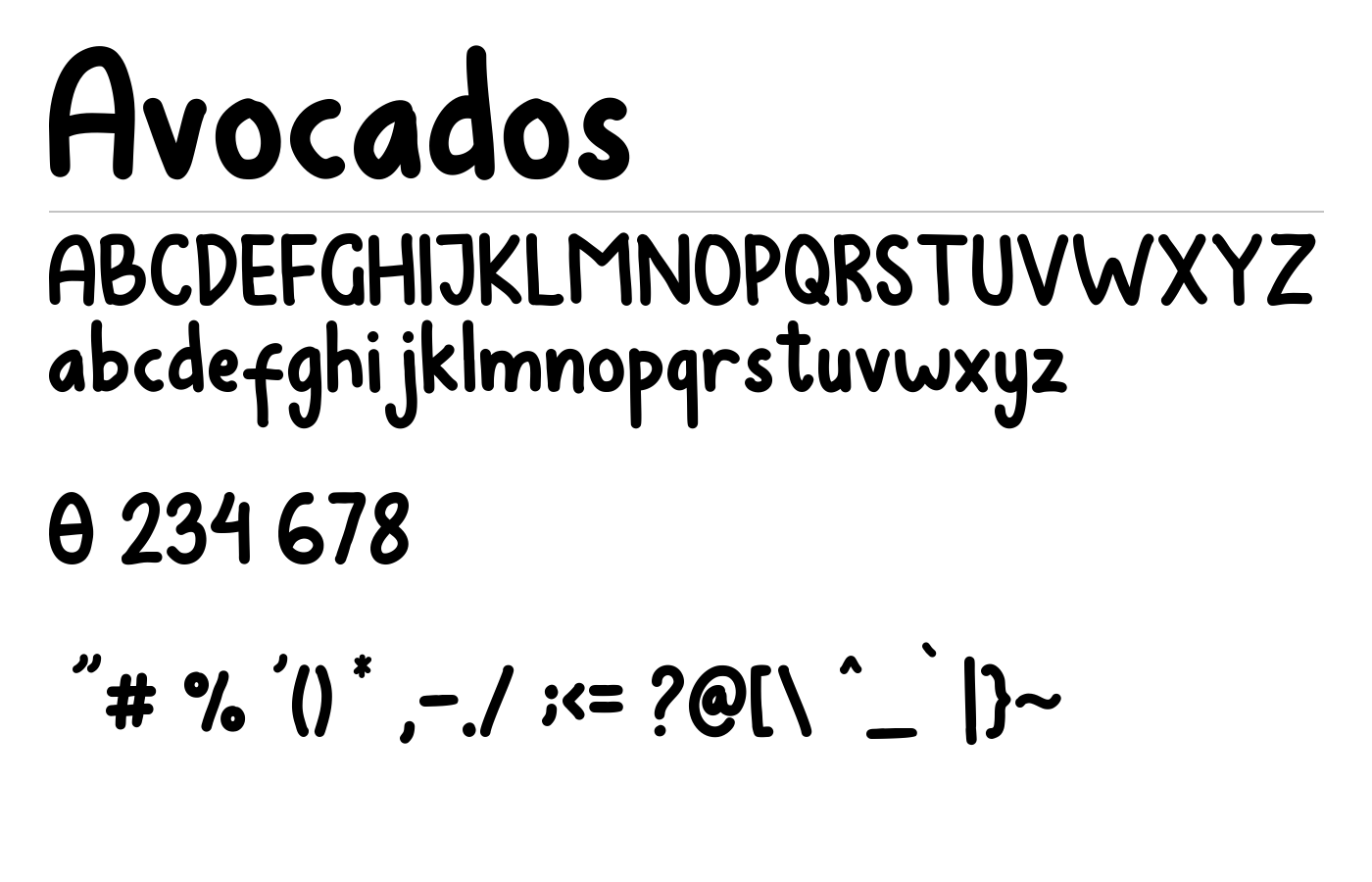
Avocados Font is a playful, casual sans serif typeface with a handwritten feel. Its rounded, slightly irregular letterforms and friendly strokes make it approachable and fun, perfect for informal designs, children’s books, or lifestyle branding. This font works well in headlines, logos, and packaging where a warm, personal touch is desired.
Avocados Font
About Avocados Font
| Designer | Muammar Khalid |